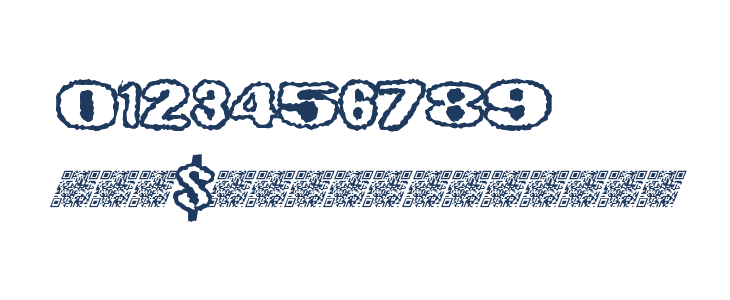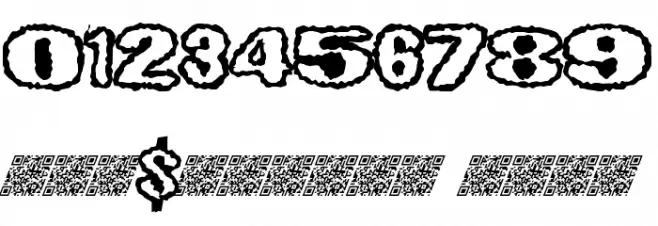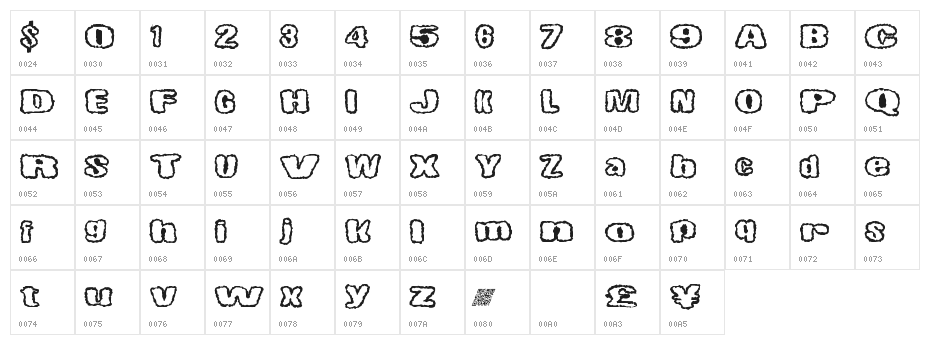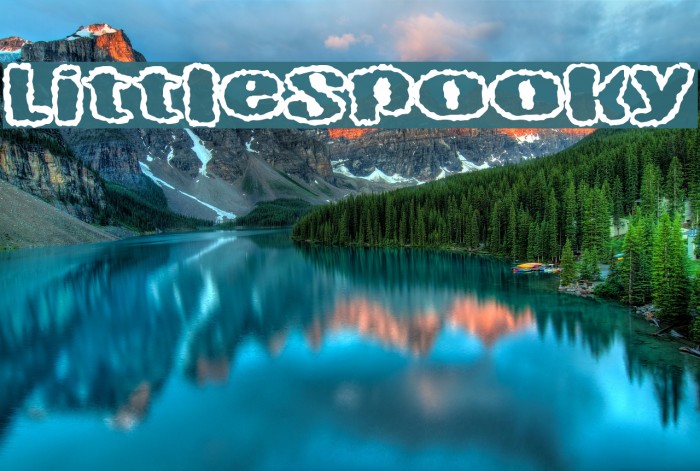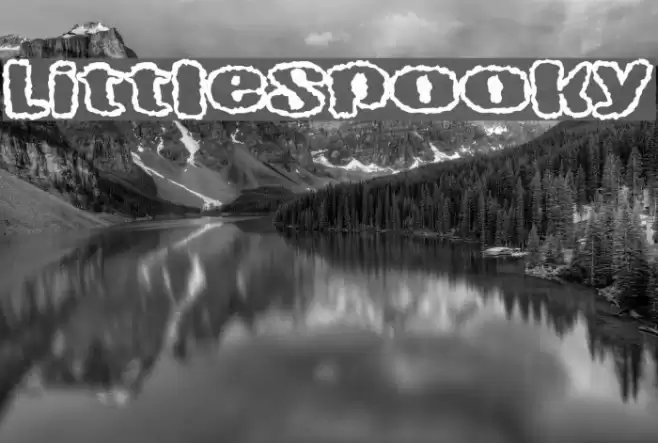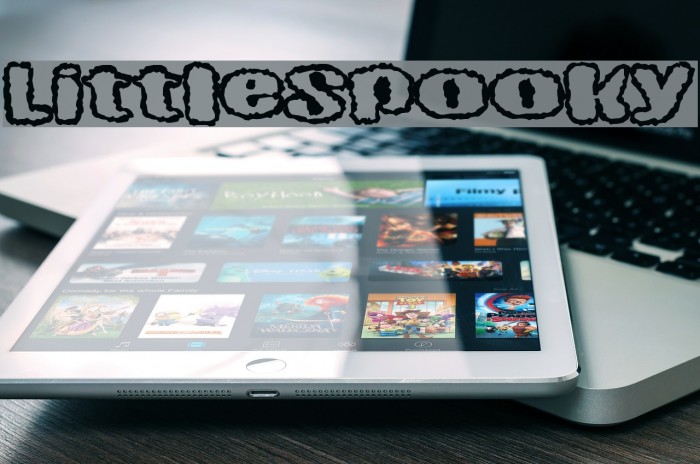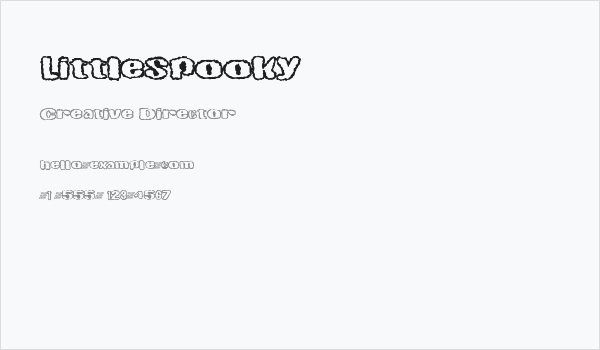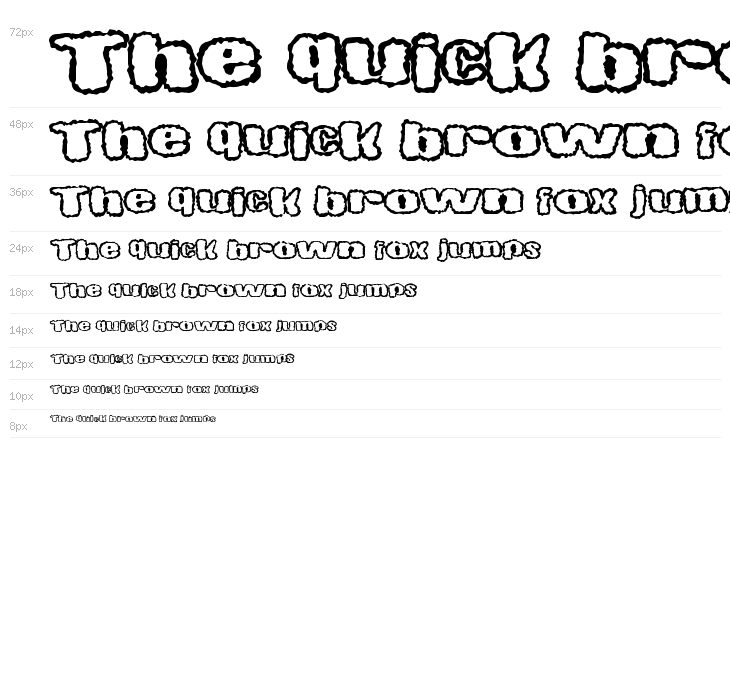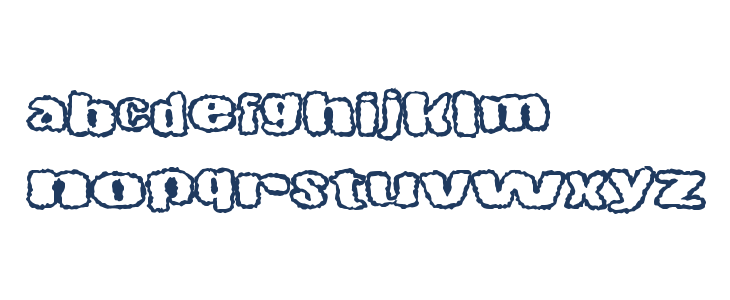
LittleSpooky Font
LittleSpooky Description
This playful and whimsical font features bold, rounded characters with a unique, irregular outline that gives it a slightly spooky appearance. The letters are designed with a hand-drawn aesthetic, creating a sense of movement and energy. The uppercase and lowercase letters maintain a consistent style, while the numbers and special characters complement the overall design. The font's distinctive look makes it ideal for projects that require a fun and eye-catching typeface.
| Proposed Projects | Ideal for Halloween-themed designs, children's book covers, party invitations, and playful branding projects. |